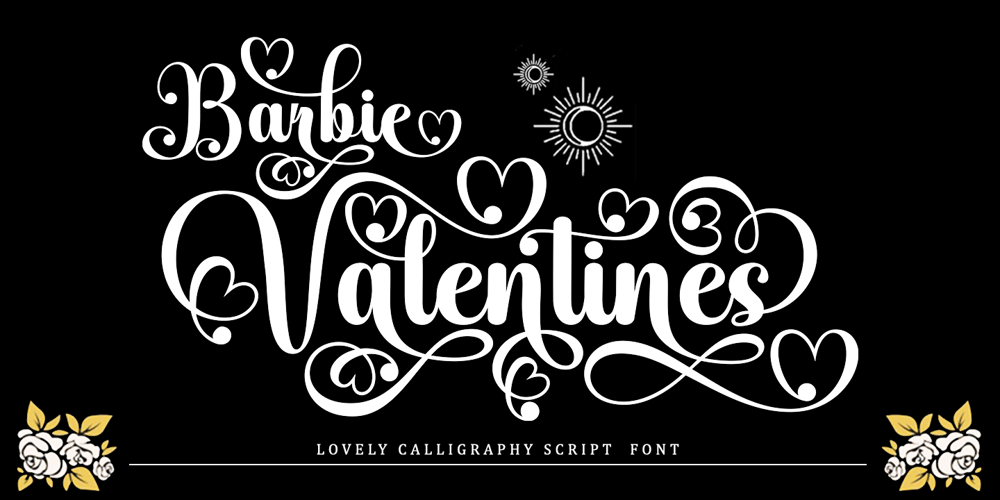
Barbie Valentines
Barbie Valentines font
Barbie Valentines Font Family was designed by Wahi Din and published by Gold Type. Barbie Valentines contains 1 styles and family package options. Introducing Barbie Valentines, a calligraphy script font that exudes timeless elegance and sophistication. It’s the allure of Barbie Valentines that captivates the attention—a seamless blend of sleekness and femininity, infused with a touch of glamour. Barbie Valentines simple design and legible letter connections make it an irresistibly easy-to-read font. Adorned with a wealth of stylistic variations for some letters, this font offers creative flexibility.Exuding the charm of the bygone era, Barbie Valentines is perfect for a myriad of formal applications. From invitations, labels, and restaurant menus to logos, fashion and make-up tags. Its classic appeal extends to stationery needs, books, magazines, novels, and greeting/wedding cards. Not to mention, it’s a standout choice for packaging, labels, and advertising essentials, making a statement in every use.The Barbie Valentines package comprises a complete set featuring Uppercase, Lowercase, Alternative, Ligature, Punctuation, Number with exceptional multi-lingual support. Embrace the enchantment of Barbie Valentines and elevate your design! With heartfelt thanks and congratulations on your design journey, Thank you.